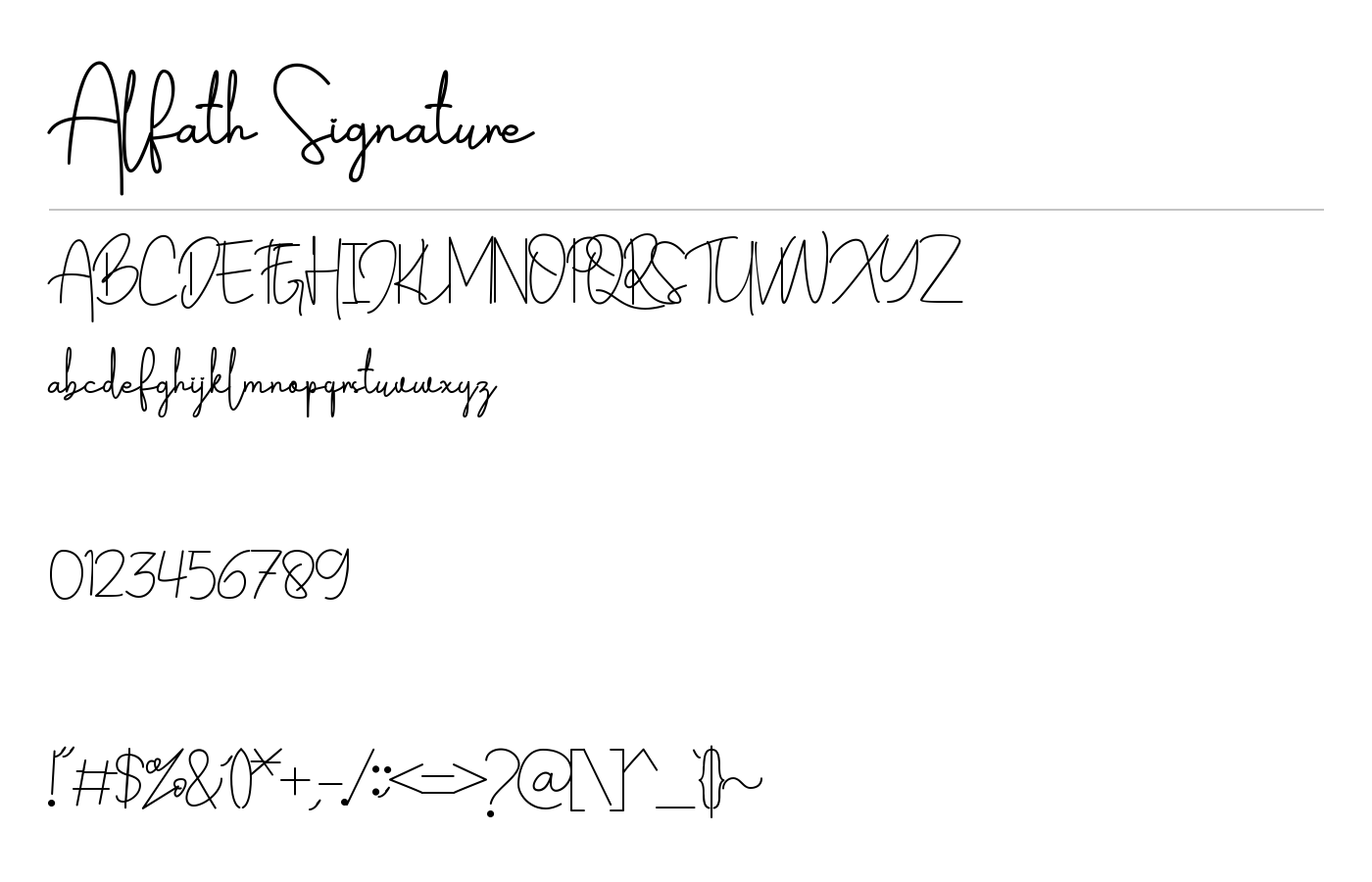
Alfath Signature is a delicate, handwritten script font with a light and airy feel, featuring slender, flowing strokes that mimic natural handwriting. Its tall, narrow letterforms and subtle irregularities give it a personal, authentic touch, making it perfect for branding, invitations, and elegant, casual designs that require a modern, stylish signature look. This font works beautifully where a refined yet approachable style is desired, especially in fashion, lifestyle, and creative projects.
Alfath Signature Font
About Alfath Signature Font
| Font family | Alfath Signature Font |
| Designer | muhamad taufik ramadhana |